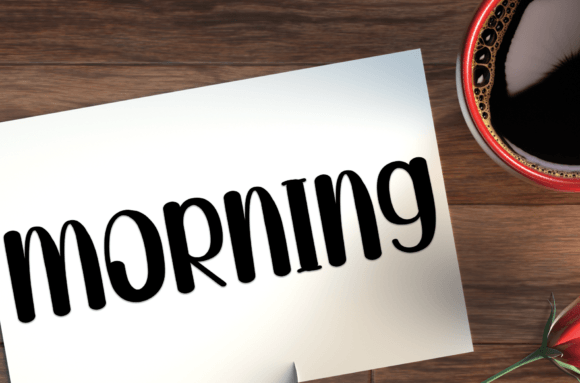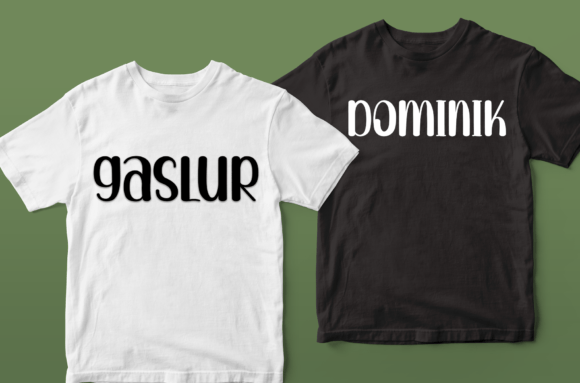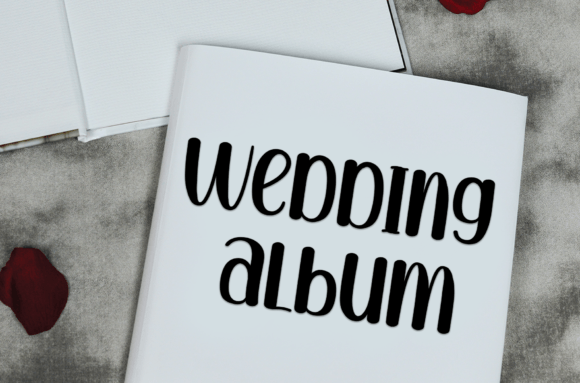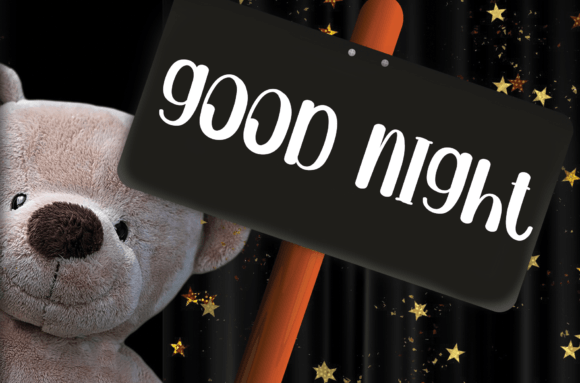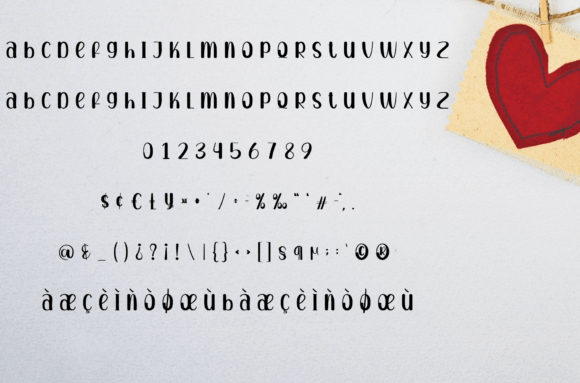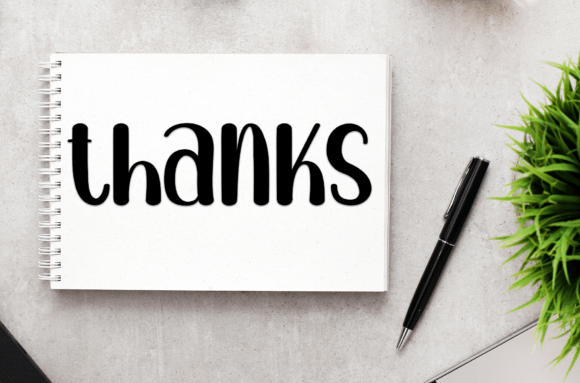
Relatives Font
About Relatives Font
Relatives is a sweet and friendly handwritten font that brings a fun and relaxed feeling to any design. With its smooth, charming strokes, this font adds warmth and personality to your creative projects. Whether you are designing wedding invitations, thank-you cards, or social media posts, Relatives makes every word look welcoming and sincere.
A Handwritten Style with Heart
Relatives has a casual handwritten look that feels genuine and personal. Each letter has been crafted to look as if it was written by hand, giving your text an authentic, human touch. The rounded shapes and soft curves make it approachable and easy to read, even at small sizes.
If you want your message to feel heartfelt and kind, Relatives is the perfect font to choose.
Perfect for Many Creative Uses
Relatives is incredibly versatile. It works beautifully in a variety of projects, such as:
• Wedding Invitations: Add a personal, romantic touch to your invitations and save-the-date cards.
• Greeting Cards: Make your messages feel warm and sincere for birthdays, holidays, or any special occasion.
• Thank-You Notes: Express your gratitude in a way that feels genuine and heartfelt.
• Logos and Branding: Bring a friendly and welcoming personality to your business identity.
• Social Media Graphics: Create posts that stand out with a relaxed, handmade feel.
• Product Labels: Give your packaging a charming, handcrafted look.
• Quotes and Posters: Inspire and uplift with text that feels inviting and beautiful.
Relatives helps you turn simple words into something memorable.
Why You’ll Love Relatives
Relatives is more than just a pretty handwritten font. It’s a design tool that helps you create work that feels personal, approachable, and full of heart. Each stroke is smooth and flowing, bringing joy and authenticity to your message.
From wedding invitations to product labels, Relatives will be your go-to font whenever you want to make your design feel warm and inviting.
Its playful style and easy readability make it a perfect fit for any project that needs a touch of friendliness.